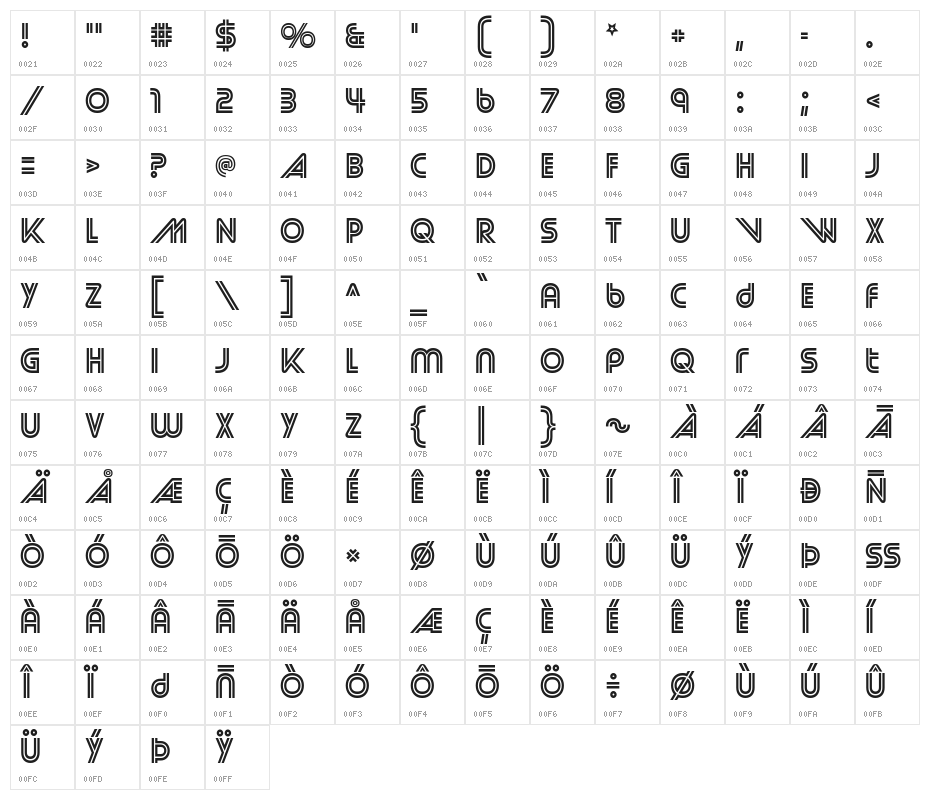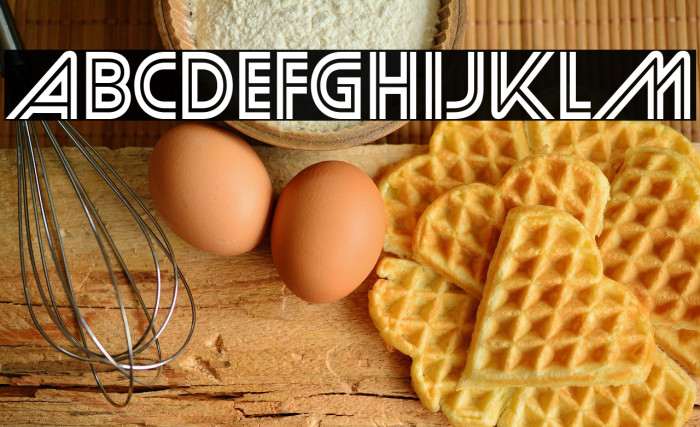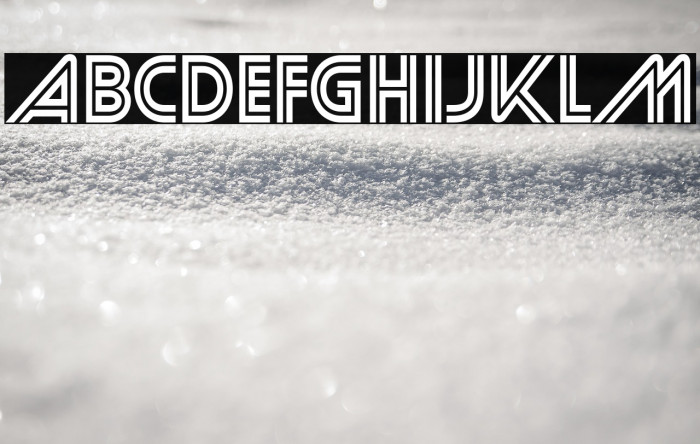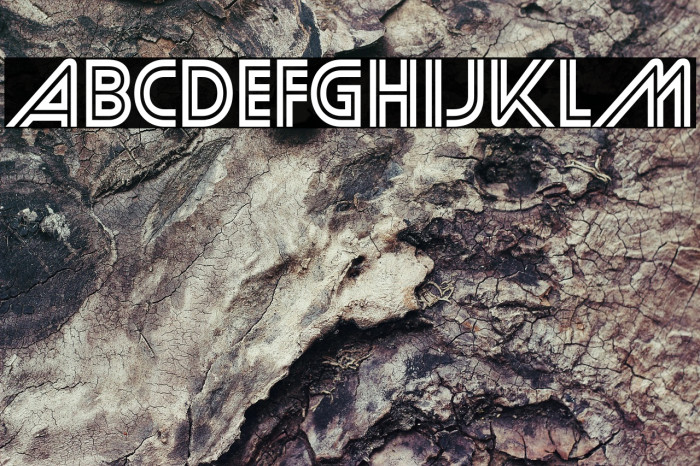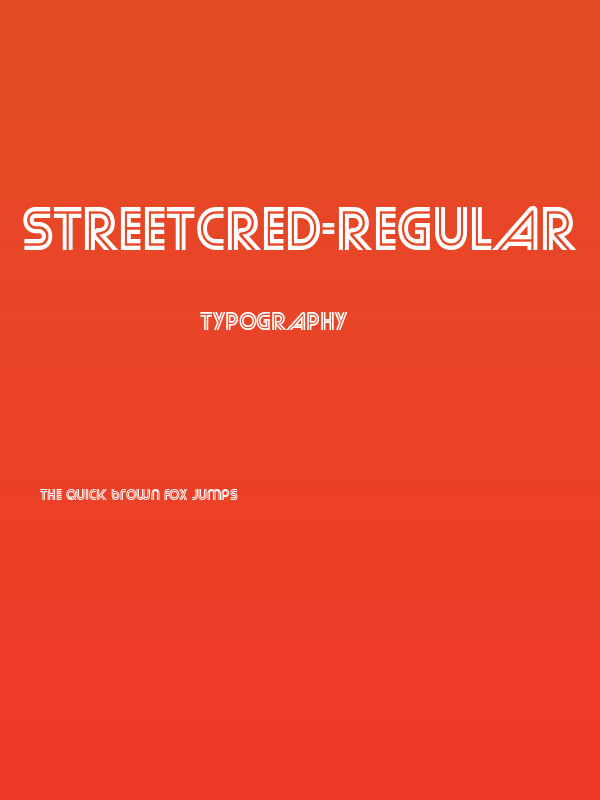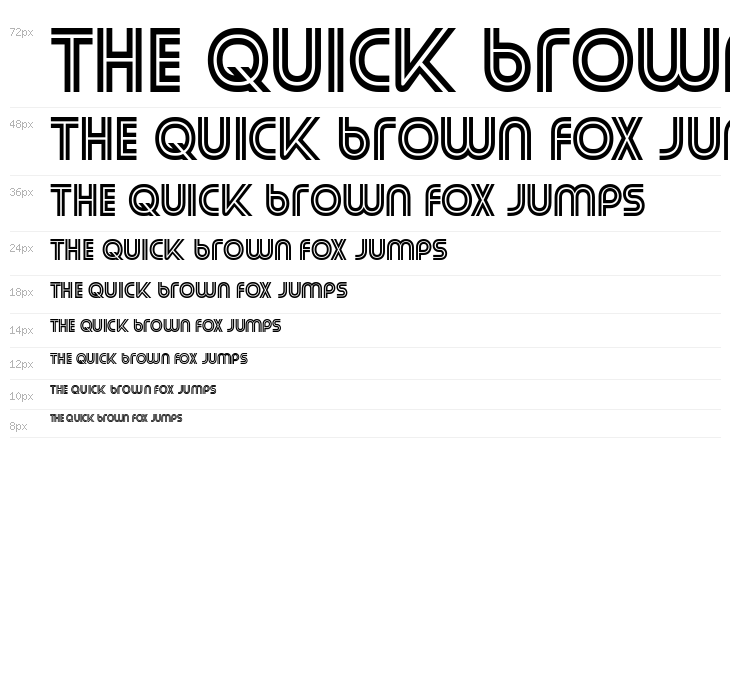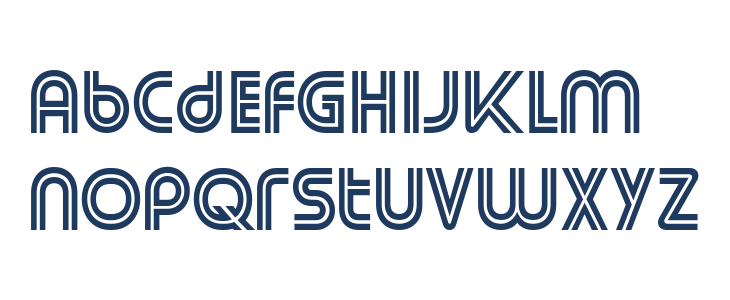
StreetCred-Regular Font
StreetCred-Regular Description
This font features a bold, geometric design with a distinctively modern and futuristic feel. The characters are constructed with double lines, creating a sense of depth and dimension. The uppercase and lowercase letters maintain a consistent style, with sharp angles and clean lines. The numerals and special characters follow the same aesthetic, ensuring uniformity across the typeface. The overall design is striking and eye-catching, making it suitable for projects that require a strong visual impact.
| Proposed Projects | Ideal for branding, posters, album covers, and any project needing a modern, impactful typeface. |